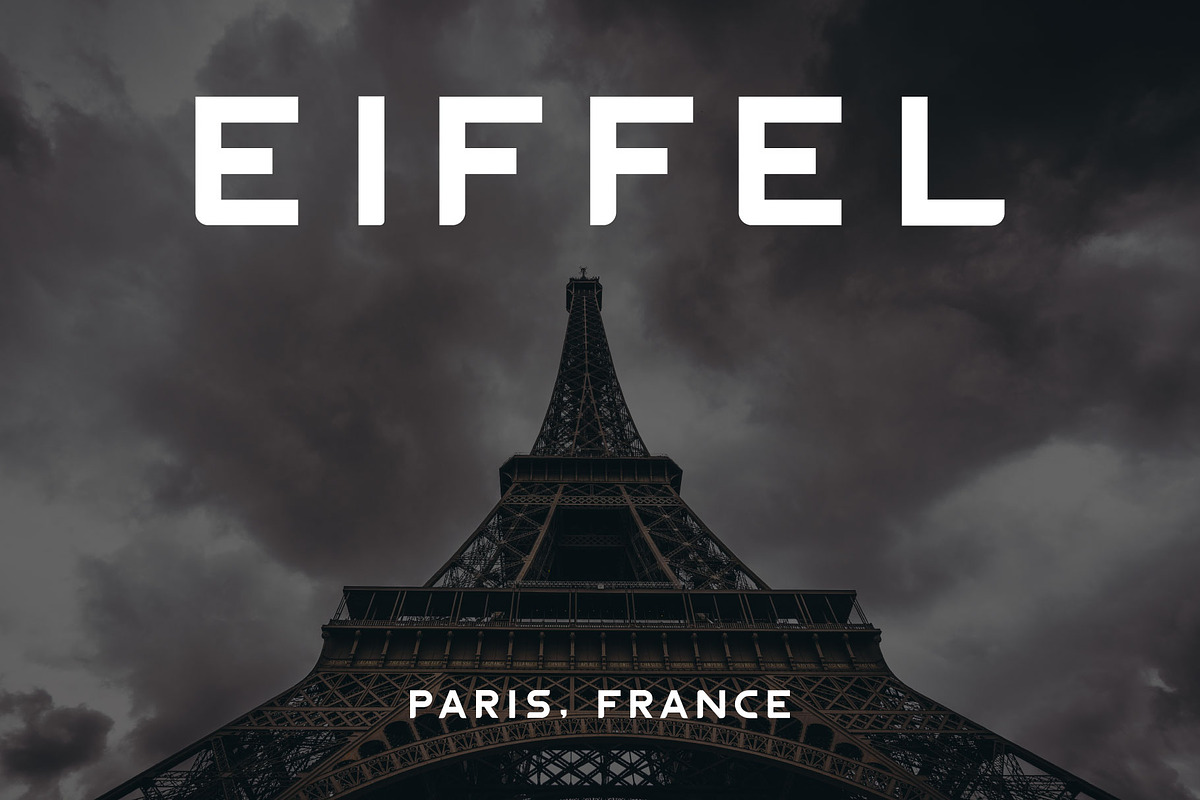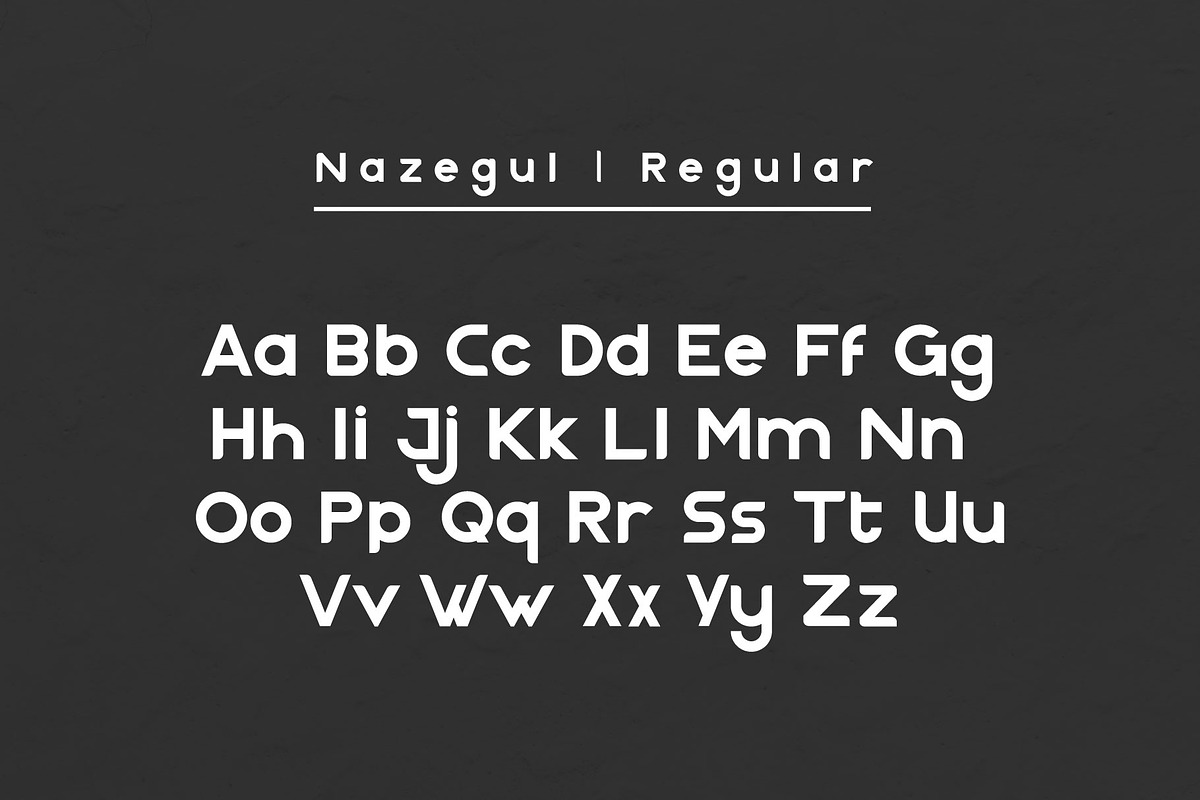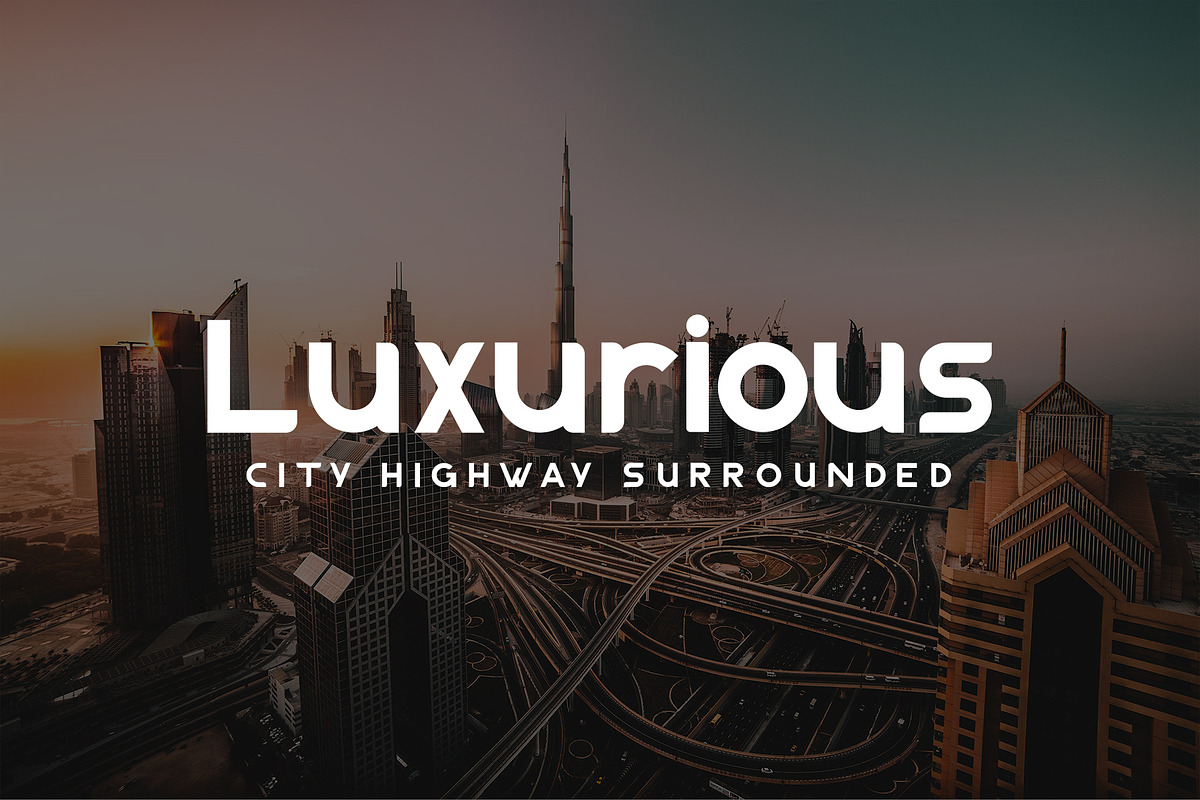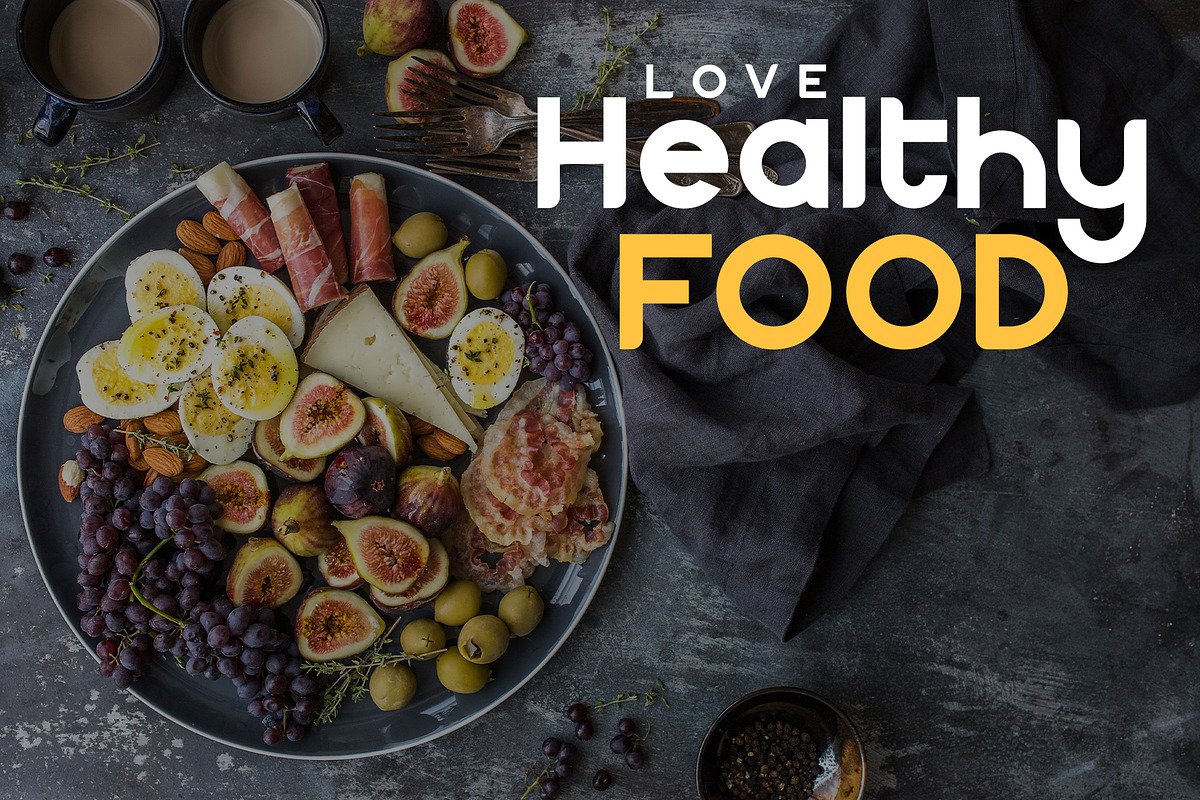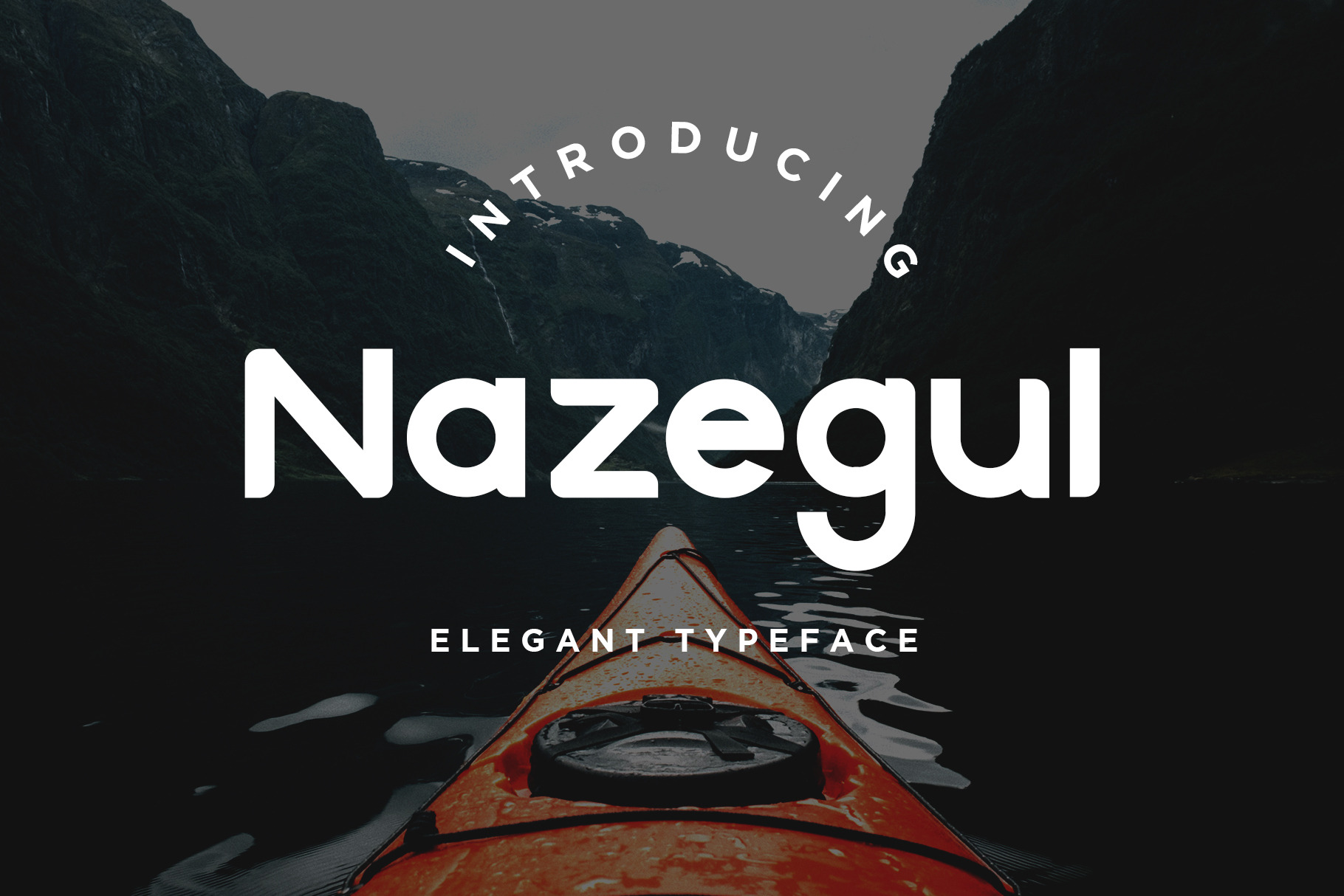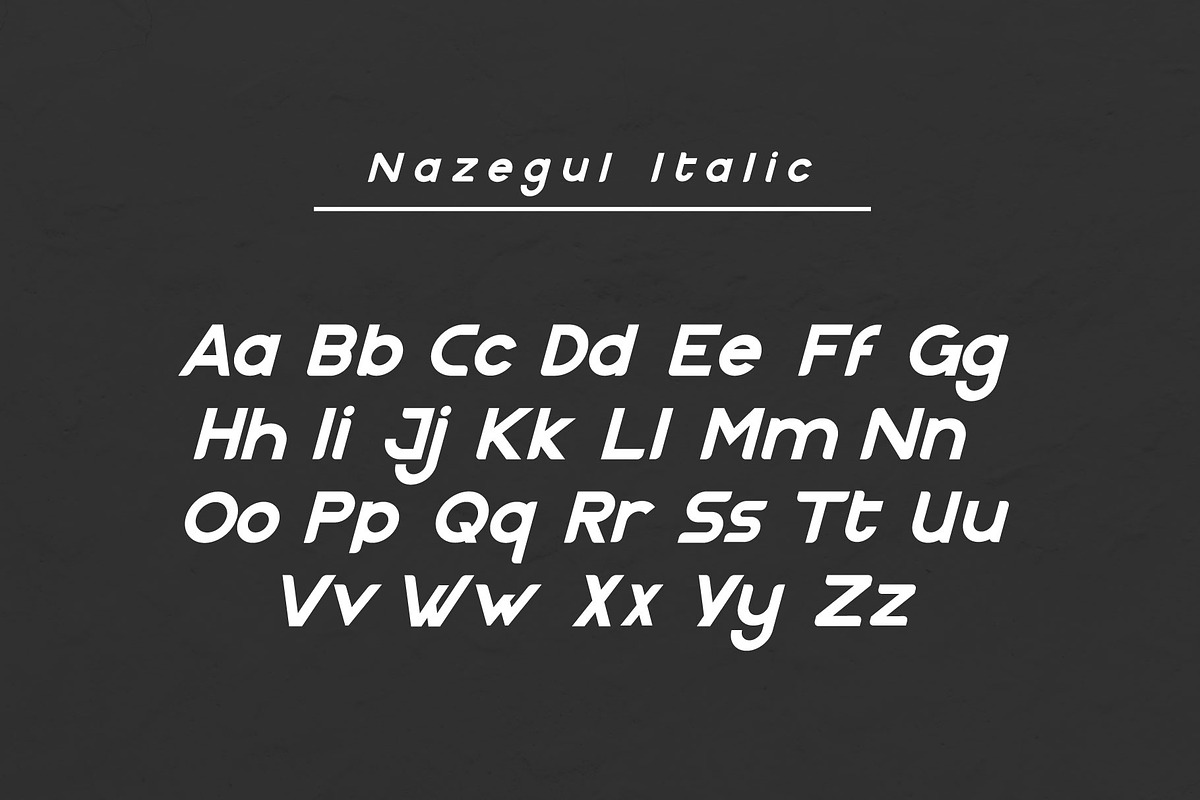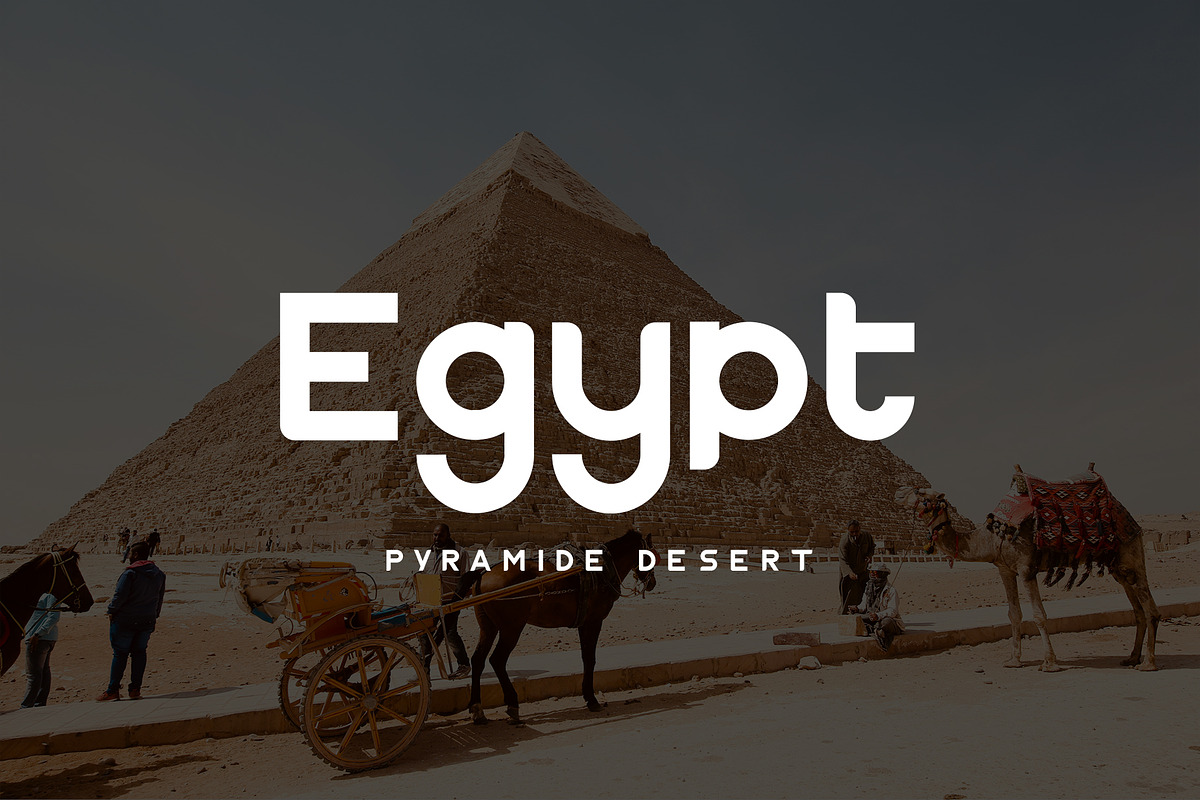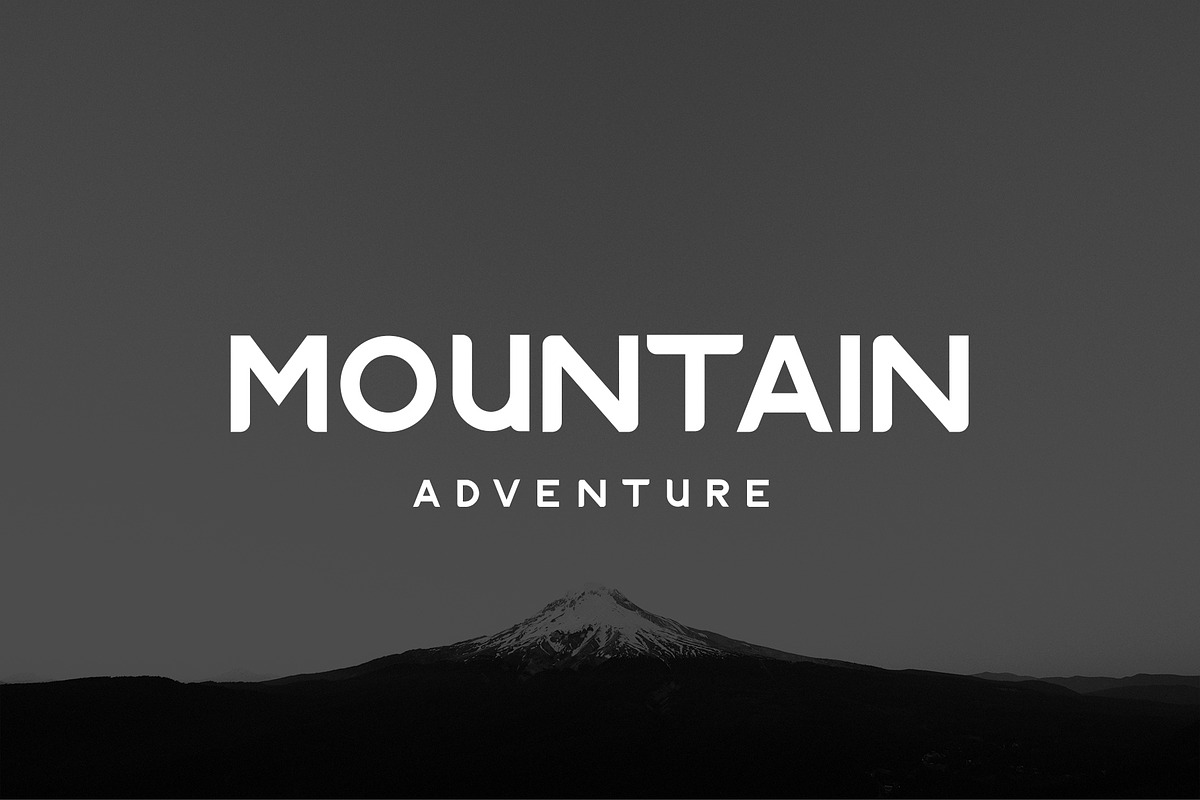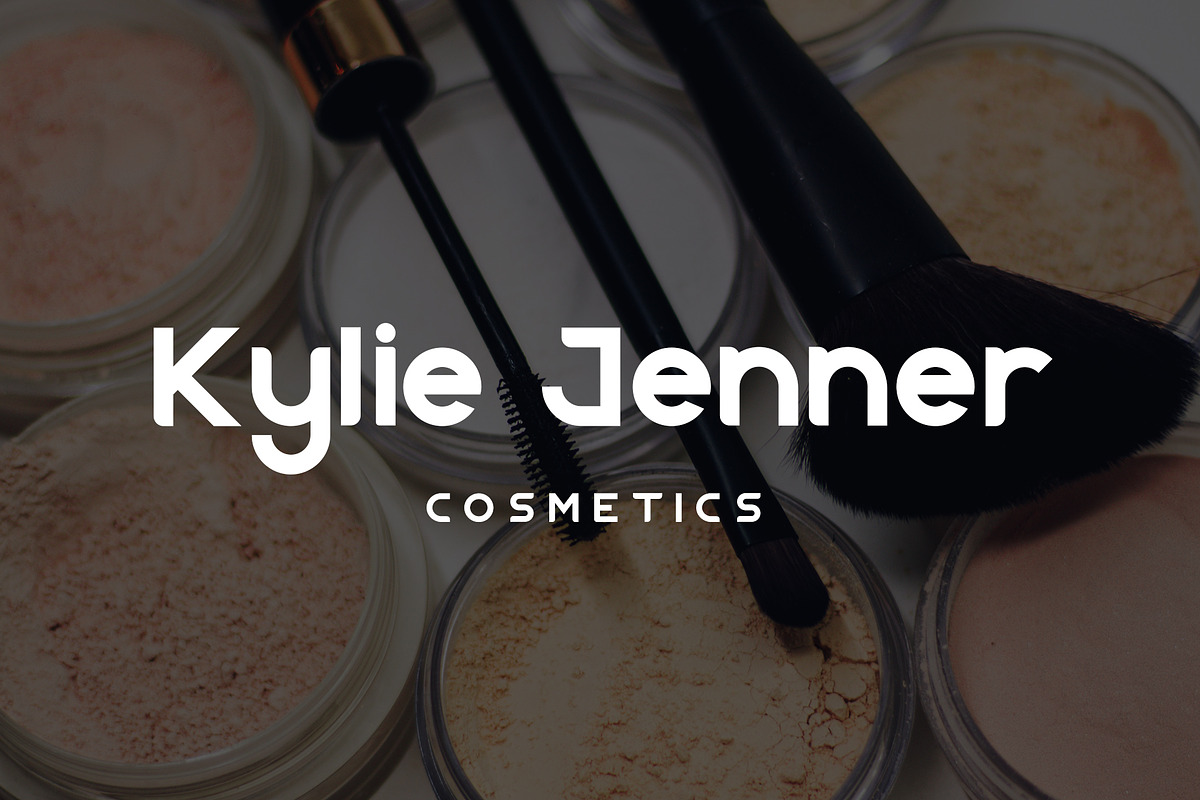
Nazegul - Elegant Typeface
Proudly introducing the new font: NAZEGUL FONT
This font comes in 2 styles which are Regular and Italic. You can see on the previews above.
Nazegul Font will be perfect for many different projects such as logos & branding, invitation, poster, flyer, wedding designs, social media posts, advertisements, product packaging, product designs, label, photography, watermark, special events or movie poster title just like what I did on the preview above.